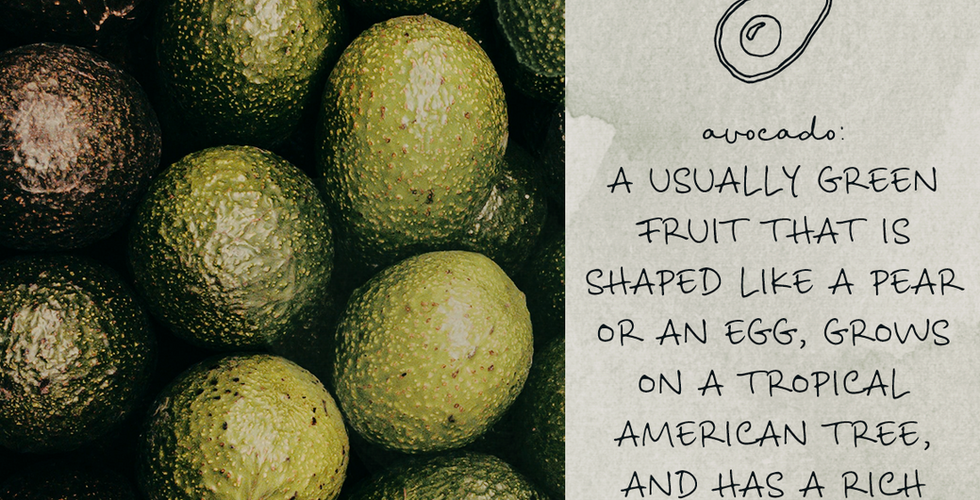
New font! Honey and Smoke
During the confinement period, one of the highlights of my week was ordering and getting my groceries delivered. Going over my grocery list and putting together the recipes I was going to make over the next days was almost therapeutic. One of the highlights of my days was illustrating these recipes in my sketchbook. I know, I know... But this gave me the idea of creating an illustrations font with different fruits and vegetables that people could use to illustrate their own recipes. I paired these small drawings with a font close to my own handwriting in the sketches. And that's the story behind Honey and Smoke, my new handwritten font collection!
Honey and Smoke is a handwritten script font and illustration collection, perfect to create cute handmade designs, such as logos, packaging, prints and postcards, patterns, and social media posts.
Honey and Smoke
A handwritten script font with tons of ligatures and a bonus slant version